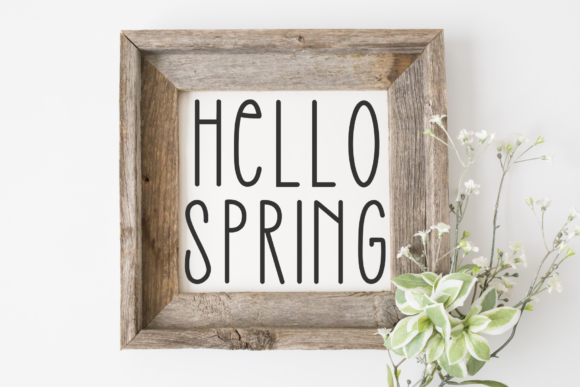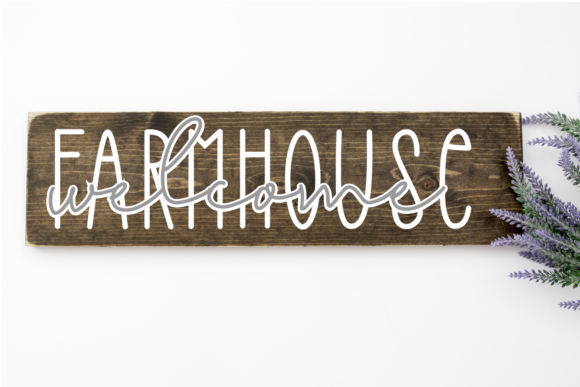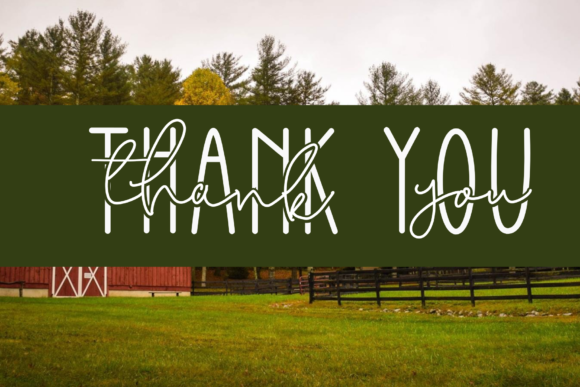
Introducing Farmhouse Font: A Simple yet Versatile Handwritten and Sans Serif Duo
Are you a designer, crafter, or DIY enthusiast looking for a font that can elevate your creative projects? Look no further than Farmhouse Font, a beautiful and versatile duo font that combines the simplicity of a thin handwritten font with the cleanliness of a sans serif font. In this article, we’ll explore the features and benefits of Farmhouse Font, and why it’s a wonderful asset to your font library.
Farmhouse Font is a carefully crafted font duo that consists of two complementary fonts: a thin handwritten font and a sans serif font. The handwritten font features delicate, cursive strokes that evoke a sense of warmth and personality, while the sans serif font boasts clean, modern lines that convey simplicity and elegance. Together, these two fonts form a powerful duo that can be used to create a wide range of creative projects, from rustic and vintage-inspired designs to modern and minimalist ones.
- Simple and Thin: Farmhouse Font is characterized by its simplicity and thin lines, making it perfect for designs that require a subtle yet elegant touch.
- Handwritten and Sans Serif Duo: The font duo offers the best of both worlds, allowing you to mix and match the handwritten and sans serif fonts to create visually appealing designs.
- Versatile: Farmhouse Font can be used for a wide range of creative projects, including branding, packaging, signage, and more.
- Elegant and Modern: The font’s clean lines and simple shapes make it perfect for modern and minimalist designs, while its handwritten elements add a touch of warmth and personality.
Benefits of Using Farmhouse Font
- Increase Versatility: The font duo’s versatility means you can use it for a wide range of projects, from rustic and vintage-inspired designs to modern and minimalist ones.
- Stand Out: Farmhouse Font’s unique combination of handwritten and sans serif elements makes it a standout font that can help your designs grab attention.